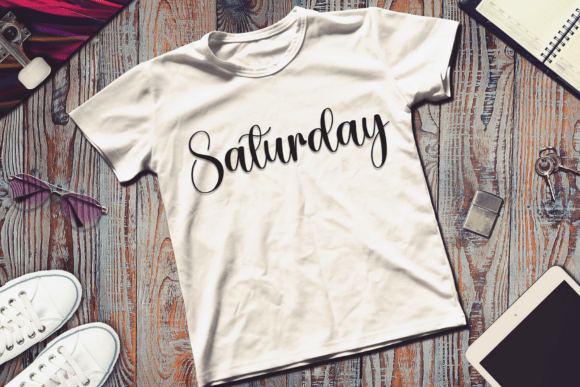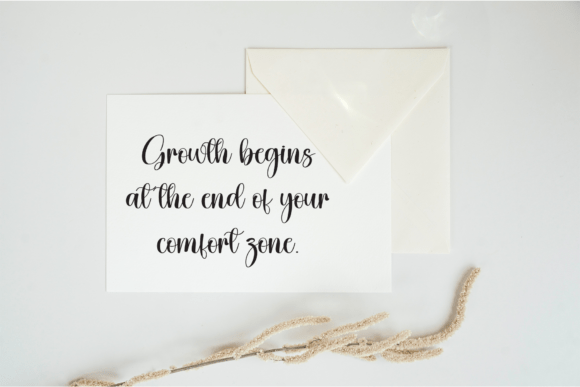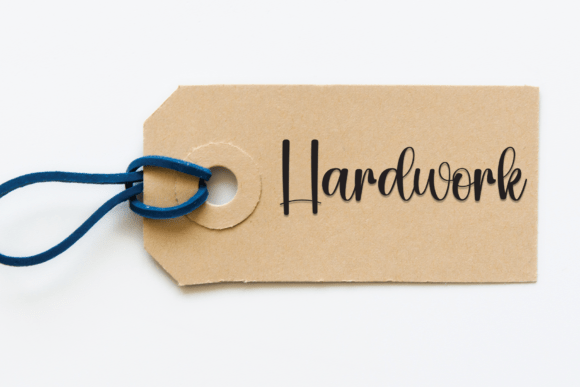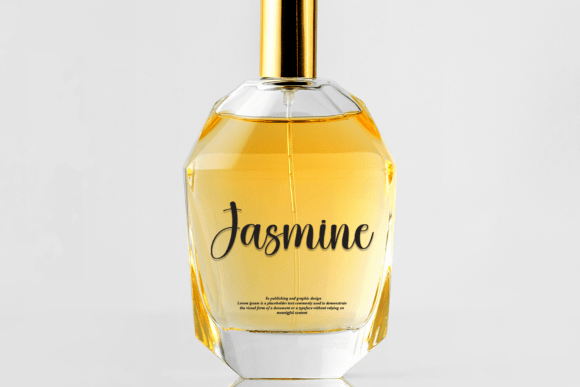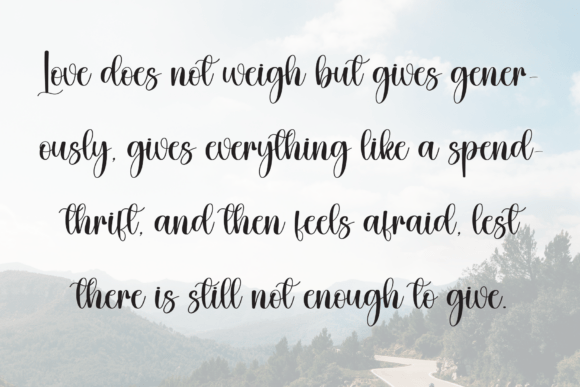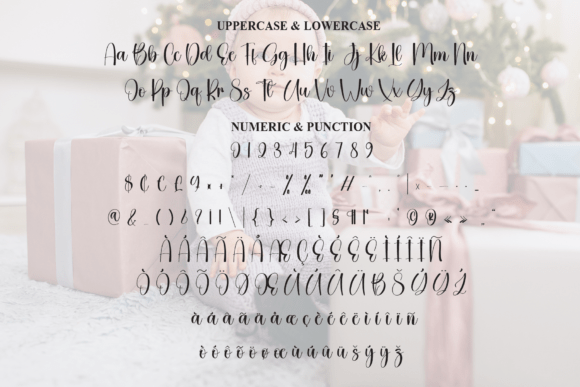
Unwrapping the Magic of Baby Christmas Font
It’s that time of the year when creativity sparks, and the air is filled with the spirit of joy and giving. As designers, we’re always on the lookout for the perfect font to bring our designs to life, and this season, we’re excited to introduce you to the enchanting Baby Christmas Font. This sweet and friendly handwritten display font is sure to infuse your designs with a delightful touch of fun and creativity.
Whether you’re crafting wedding invitations, greeting cards, or any other festive design, the Baby Christmas Font is the perfect companion to elevate your aesthetic. Its charming character and whimsical feel make it an invaluable asset for designers seeking to add a touch of magic to their work.
Baby Christmas Font Key Features
- Font Family: Baby Christmas Font is a unique, handwritten font designed specifically for the holiday season.
- Unique Characteristics: Features a playful, whimsical style with intricate details and flourishes, perfect for adding a touch of magic to holiday designs.
Baby Christmas Font Review
Overall, the Baby Christmas Font is a cute and playful addition to any holiday design project. It’s perfect for creating a whimsical and festive atmosphere. ✨ I love the way the font’s rounded edges and bold lines evoke a sense of childlike wonder.
The font’s versatility is one of its strongest suits. It can be used for a variety of applications, from social media graphics to wedding invitations. ✨ The font’s consistency across different sizes and weights makes it easy to work with.
- ⚠️ The font may be too sweet for some designs. It’s best used for projects that require a lighthearted and playful tone.
- ⚠️ The font’s lack of subtlety may make it difficult to use in more sophisticated or elegant designs.
Overall, the Baby Christmas Font is a great choice for designers who want to add a touch of holiday magic to their projects. While it may have some limitations, its charm and versatility make it a valuable addition to any design toolkit.
Tips for Getting the Most Out of the Baby Christmas Font
1. Use the font in conjunction with other festive elements, such as holly or snowflakes, to create a cohesive design.
2. Experiment with different font sizes and colors to create visual interest.
3. Use the font to create a sense of whimsy and playfulness in your design.
The Baby Christmas Font is perfect for:
1. Holiday greeting cards and invitations.
2. Social media graphics and posts.
3. Party decorations and signage.
Alternatives to Baby Christmas Font
Pacifico is a beautiful, elegant script font that is perfect for adding a touch of sophistication to your designs. It is ideal for use in wedding invitations, branding, and other high-end designs. Compared to Baby Christmas Font, Pacifico is more refined and less playful, making it a great choice for designs that require a more mature look.
Great Vibes is a fun, modern script font that is perfect for adding a playful touch to your designs. It is ideal for use in social media graphics, advertising, and other designs that require a fun and energetic vibe. Compared to Baby Christmas Font, Great Vibes is more dynamic and less traditional, making it a great choice for designs that require a modern look.
Carolyna Pro is a elegant, modern script font that is perfect for adding a touch of luxury to your designs. It is ideal for use in branding, advertising, and other high-end designs. Compared to Baby Christmas Font, Carolyna Pro is more refined and less playful, making it a great choice for designs that require a sophisticated look.